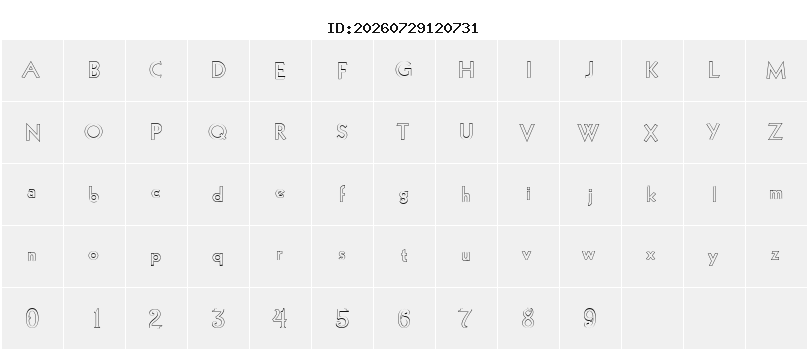
• Designer: Georges Dib
• Manufacturer: Linotype GmbH
• Description: Kufi is a traditional-style Arabic headline face available in two styles, Kufi and Kufi Outline. Both of the OpenType fonts include Latin glyphs from Kabel Heavy inside the font files, allowing a single font to set text in both most Western European and Arabic languages The two Kufi OpenType fonts incorporate the Basic Latin character set (Western CP 1252 Latin 1/ANSI and Macintosh US Roman) and the Arabic character set (CP 1256), which supports Arabic, Persian, and Urdu. They include tabular and proportional Arabic, Persian, and Urdu numerals, as well as a set of tabular European (Latin) numerals.
Kufi LT Outline Regular.ttf is a modern, elegant sans-serif font designed for ultimate readability and visual harmony. Perfect for branding, headlines, web design, and print materials.